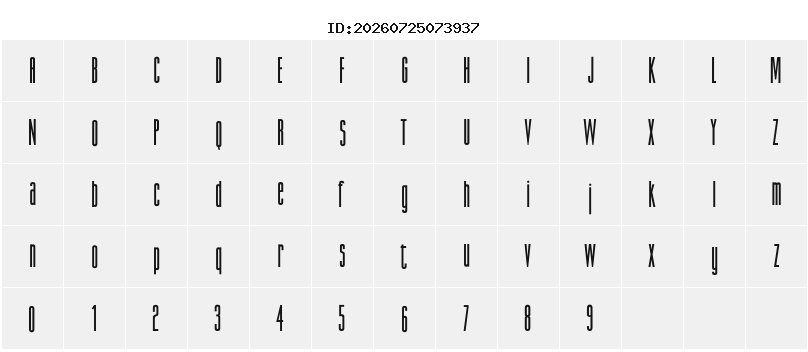
GiottoFLF.ttf is a modern, elegant sans-serif font designed for ultimate readability and visual harmony. Perfect for branding, headlines, web design, and print materials.